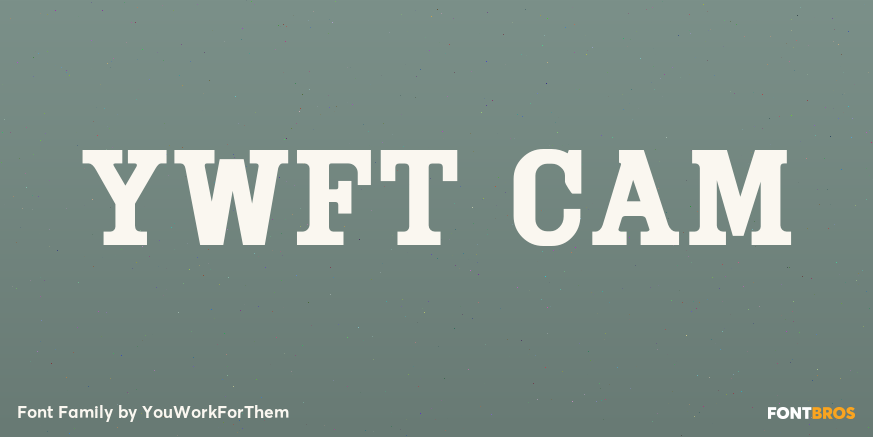
YWFT Cam
About YWFT Cam
It ain\’t good for some fonts to live too long, pilgrim. That\’s why YWFT Cam was designed, as a fresh and unique wood-type typeface option for designers. YWFT Cam is a uni-case typeface design but also uses the lowercase to offer alternate design options…